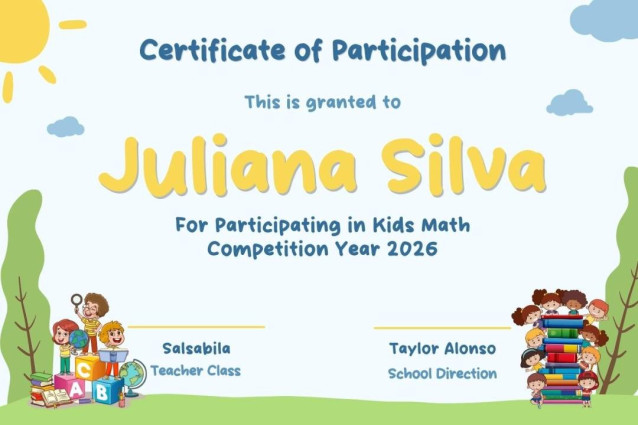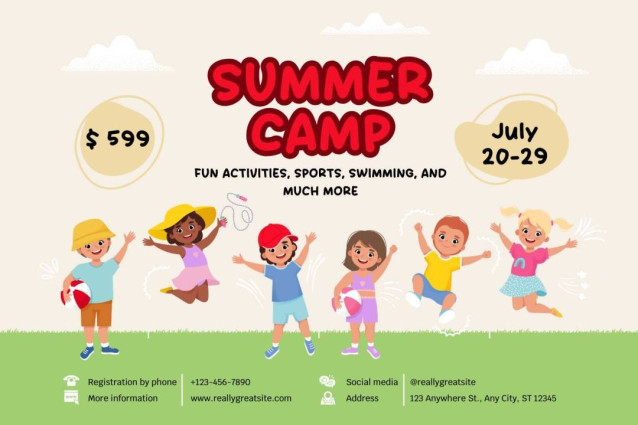
Dorky Circle Font
Dorky Circle Font a sweet and friendly handwritten font. Cute and fun, this font is ideal for writing wedding invitations, cards, or any other design that might need a fun touch!